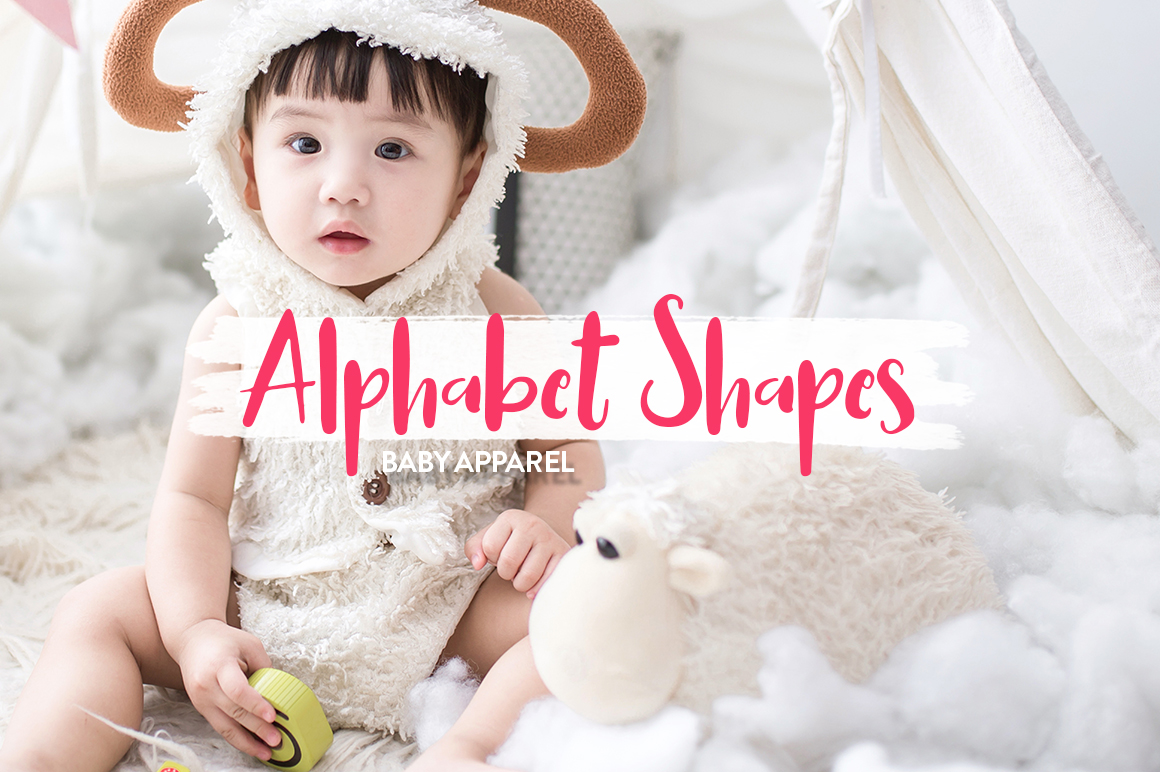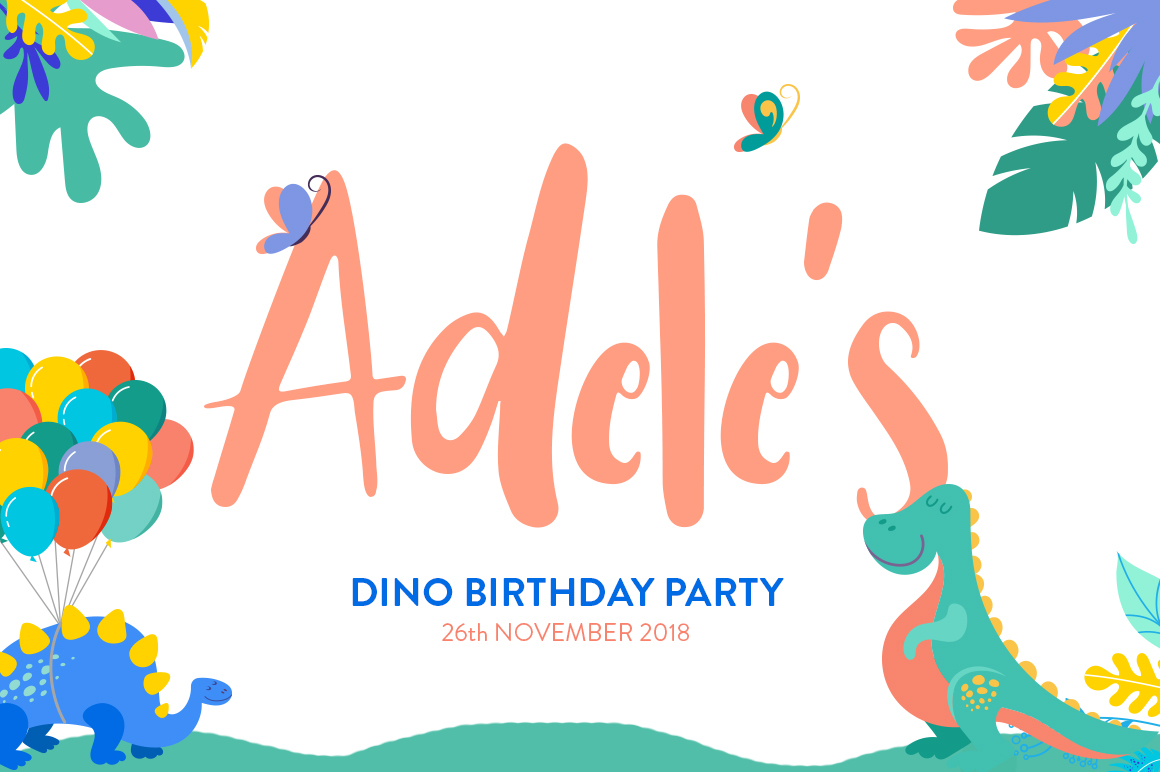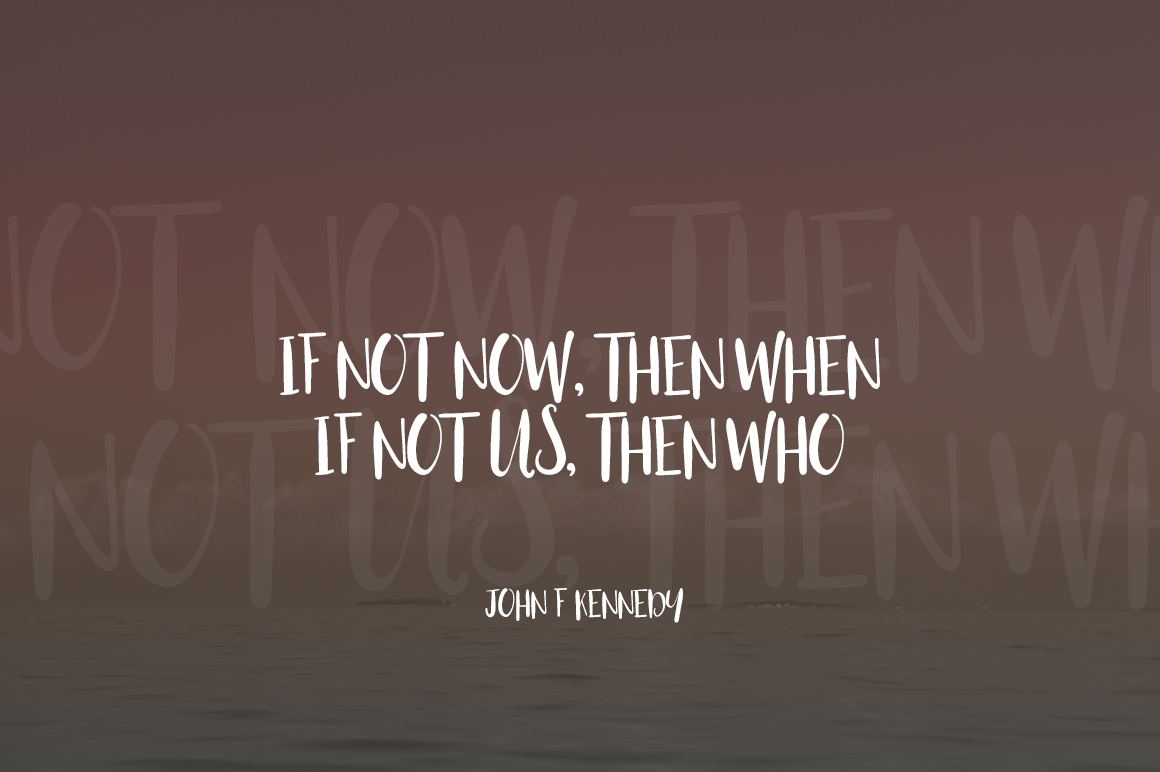
Introduction to Qillow Script Font
Have you ever found yourself in a creative block, scrolling through design resources, searching for the perfect font to elevate your project? You stumble upon a quirky, playful script that instantly sparks inspiration, and you can’t help but envision your design come to life. For designers, this moment is a treasure – a chance to bring their vision to reality with the right tools.
Enter the Qillow Script Font, a brand new addition to your design arsenal. This bulbous, natural font is a game-changer for creative projects, offering a unique touch that sets your work apart. With its versatility and high-quality design, it’s no wonder Qillow Script Font is becoming a sought-after resource for designers.
Key Features of Qillow Script Font
- High-quality design resource ideal for creative projects, including invitations, posters, and more.
- Features a beautiful, handwritten script style with a transparent background for easy customization.
- Includes a variety of characters, including uppercase and lowercase letters, numbers, and punctuation marks.
- Supports a range of languages, making it a versatile design resource for global creative projects.
Honest Review: Qillow Script Font
I recently came across the Qillow Script Font, and I must say, it’s a fantastic design resource. This elegant script font is perfect for adding a touch of sophistication to your creative project.
- ✨ High quality: The font is crisp and clean, with smooth lines and no jagged edges.
One of the standout features of the Qillow Script Font is its versatility. It’s suitable for a wide range of creative projects, from wedding invitations to product packaging.
- ⚠️ Limited character set: The font doesn’t have a comprehensive character set, which may limit its use for complex text-based projects.
- ⚠️ Not suitable for small text: Due to its elegant design, the Qillow Script Font may not be the best choice for small text or body copy.
Overall, I’m impressed with the Qillow Script Font. It’s a beautiful, high-quality font that’s perfect for designers looking to add a touch of elegance to their creative projects.
Tips for Getting the Most Out of Qillow Script Font
For a transparent background, use Qillow Script Font on a white or light-colored background. This will make your text stand out and add a touch of elegance to your design. You can also use the font in combination with other design elements, such as graphics and images, to create a unique and eye-catching design.
Common Use Cases for Qillow Script Font
Qillow Script Font is perfect for a variety of creative projects, including wedding invitations, birthday cards, and social media graphics. It’s also great for adding a personal touch to your blog or website. With its high-quality design and free download, Qillow Script Font is a must-have design resource for any creative project.